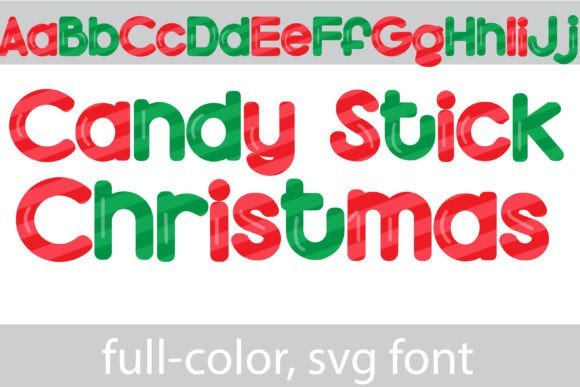
Deck the Halls with a Sweet Touch: Introducing Candy Stick X-mas Font
It’s that time of the year again – the holiday season is just around the corner, and designers are scrambling to create festive and fun content that captures the magic of Christmas. As you sit down to craft your holiday projects, you’re probably thinking of ways to add a dash of personality and whimsy to your designs. That’s where the Candy Stick X-mas Font comes in – a delightful, full-color font that’s sure to put a smile on your face and add a touch of holiday cheer to your work.
This charming font features candy cane striped lettering in red and green, making it the perfect addition to your holiday design arsenal. With its playful and festive vibe, the Candy Stick X-mas Font is a valuable asset for designers looking to create eye-catching titles, displays, posters, and more. Whether you’re working on a Christmas card, a holiday-themed blog post, or a festive social media campaign, this font is sure to bring a touch of sweetness to your designs.
Candy Stick X-mas Font Key Features
- Character Set: Includes uppercase and lowercase letters, numbers, punctuation, and special characters
- Unique Characteristics: Features a festive and playful design, perfect for holiday-themed projects and designs
Candy Stick X-mas Font Review
Overall, I think the Candy Stick X-mas Font is a sweet addition to any holiday design project. Here are some of its highlights:
- ✨ Unique and playful design: The font’s whimsical feel is perfect for creating festive and fun holiday materials.
- ✨ Wide character set: The font includes a wide range of characters, including uppercase and lowercase letters, numbers, and punctuation marks.
- ✨ Easy to use: The font is highly legible and easy to read, making it a great choice for body text or headlines.
- ⚠️ Limited language support: The font may not include all the characters you need for languages other than English.
- ⚠️ Limited font sizes: The font may not look as good at very large or very small font sizes.
Overall, I think the Candy Stick X-mas Font is a great choice for holiday designs that need a playful and festive touch. While it may have some limitations, its unique design and wide character set make it a valuable addition to any designer’s toolkit.
The Candy Stick X-mas Font is perfect for:
- Christmas cards